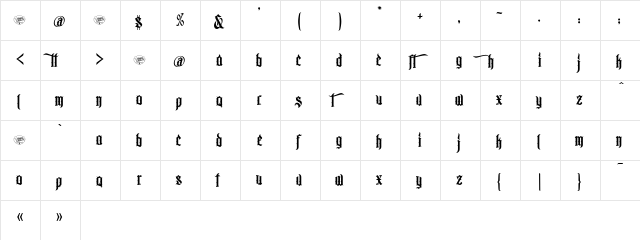
MCF bad manners ww Regular
| Foundry | Mister Chek |
| Designer | Andrey Chernevich |
Design Context for MCF bad manners ww Typeface
MCF bad manners ww is a composed and adaptable typeface that performs quietly and consistently across a wide range of design contexts.